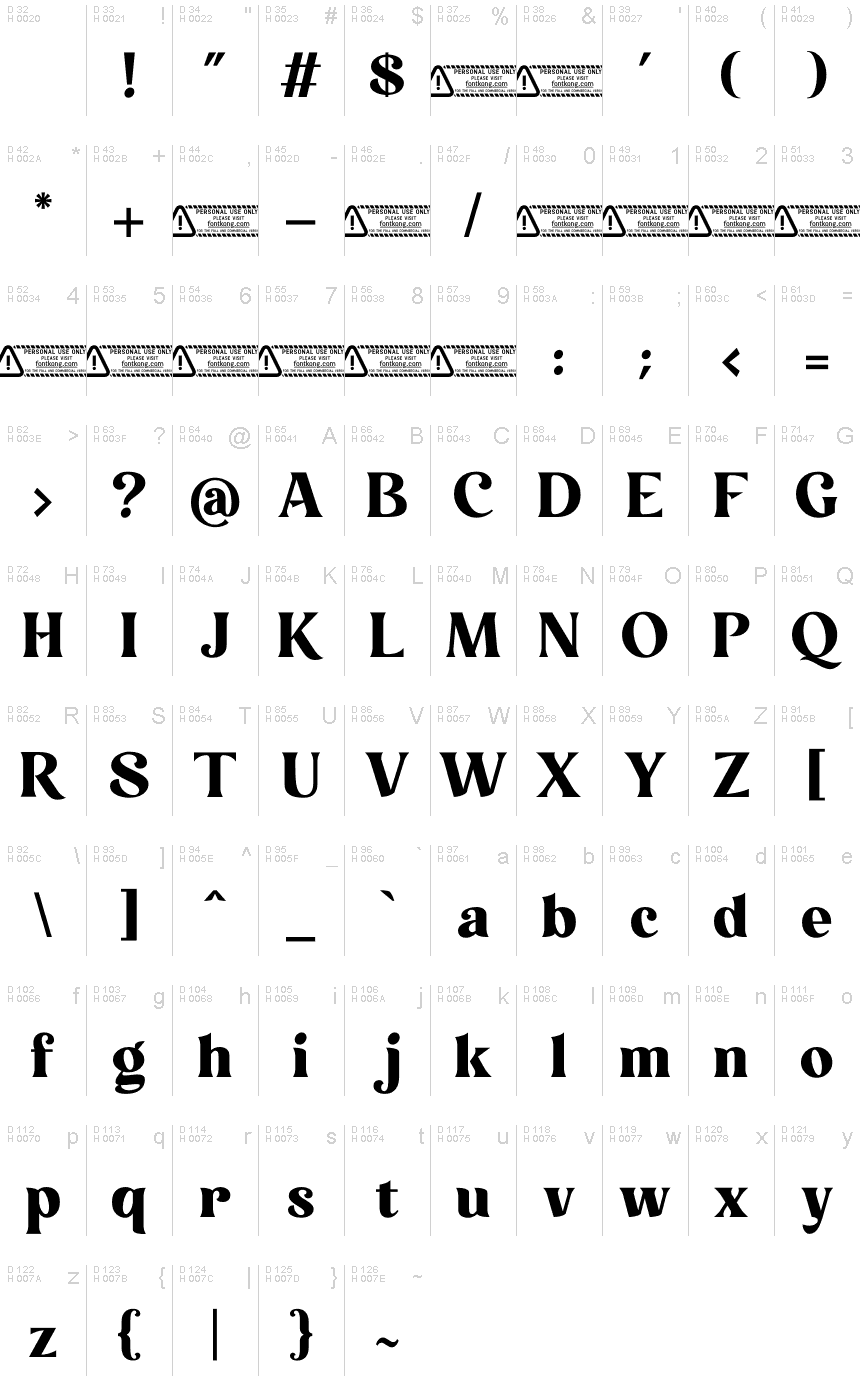
Neom
Neom, the extraordinary creation by Kong Font, is an extra-bold serif font that exudes elegance and sophistication. Its strong, assertive strokes make it ideal for branding projects that demand a bold statement.
Neom's refined serifs lend themselves perfectly to high-end fashion magazines, adding a touch of class to editorial spreads. This font type also shines in luxury packaging designs, promoting exclusivity and distinction. Whether crafting captivating headlines or designing eye-catching logos, Neom is the epitome of timeless beauty and will effortlessly elevate any project to new heights of sophistication.